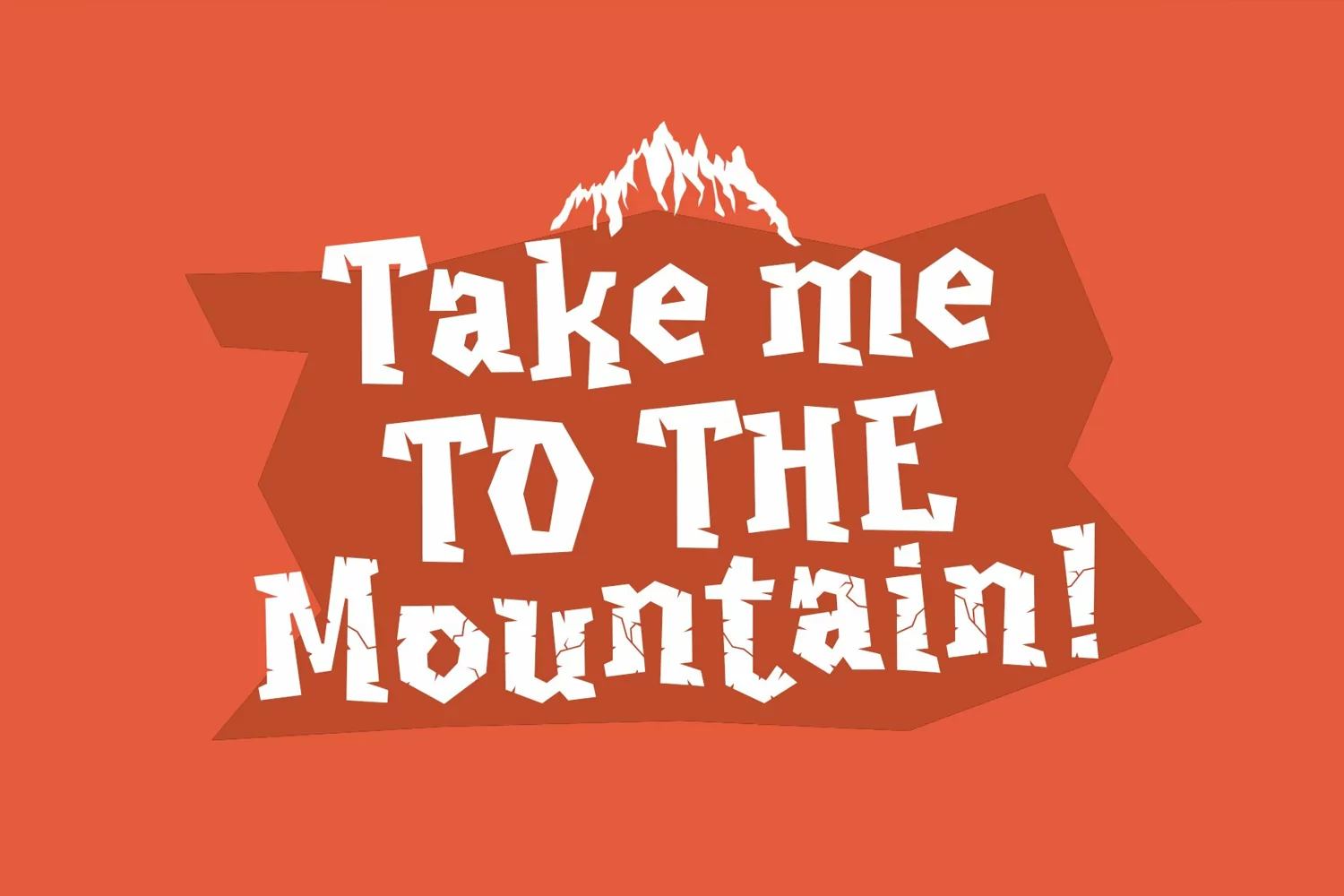
BHOH is coarse and broken, it’s rough and pitted. Use BHOH for a great variety of applications such as flyers, graffiti art, advertisements, posters and magazine pages.